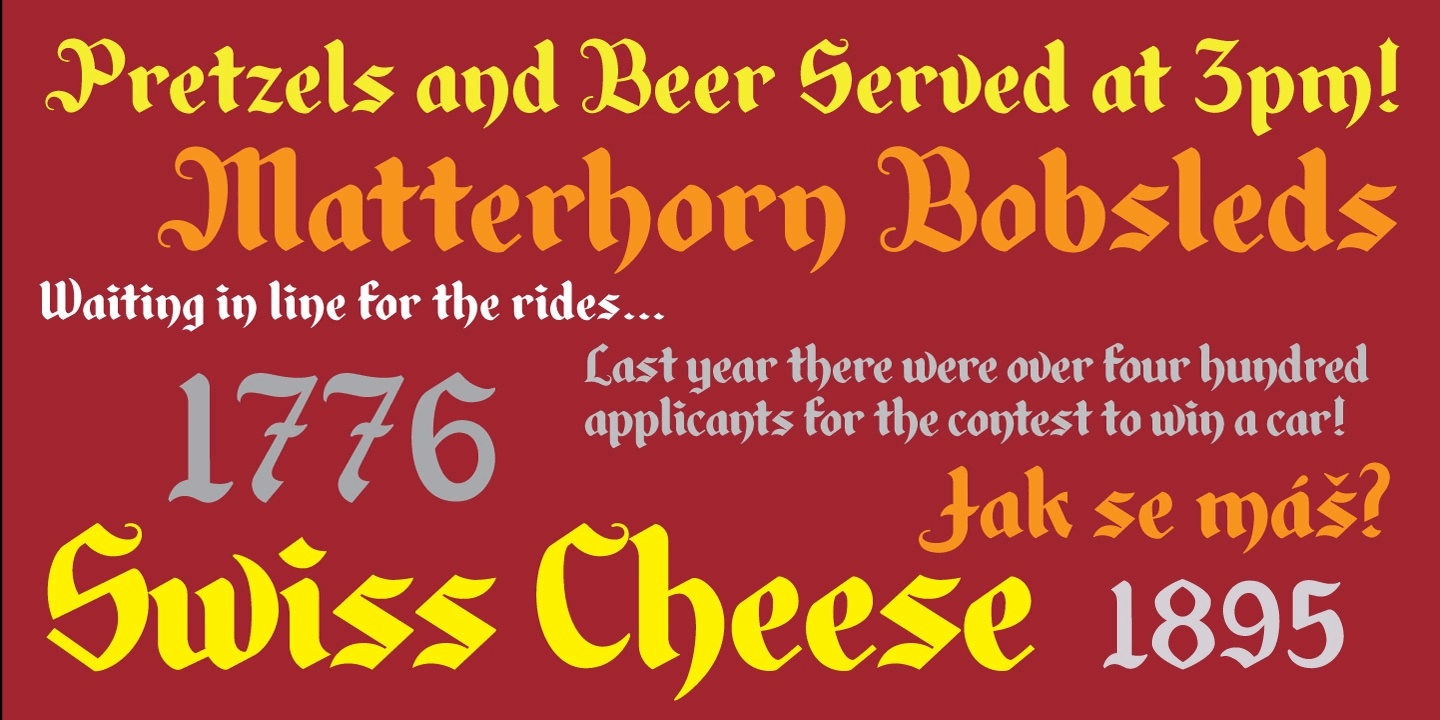
Alpengeist
Font Family by Jukebox
Alpengeist literally means "Spirit of the Alps" in German. This typeface, based on a hand lettered sign, inspires the Biergarten lover in all of us. Packed with European and Germanic flair, this whimsical take on the Blackletter style will add